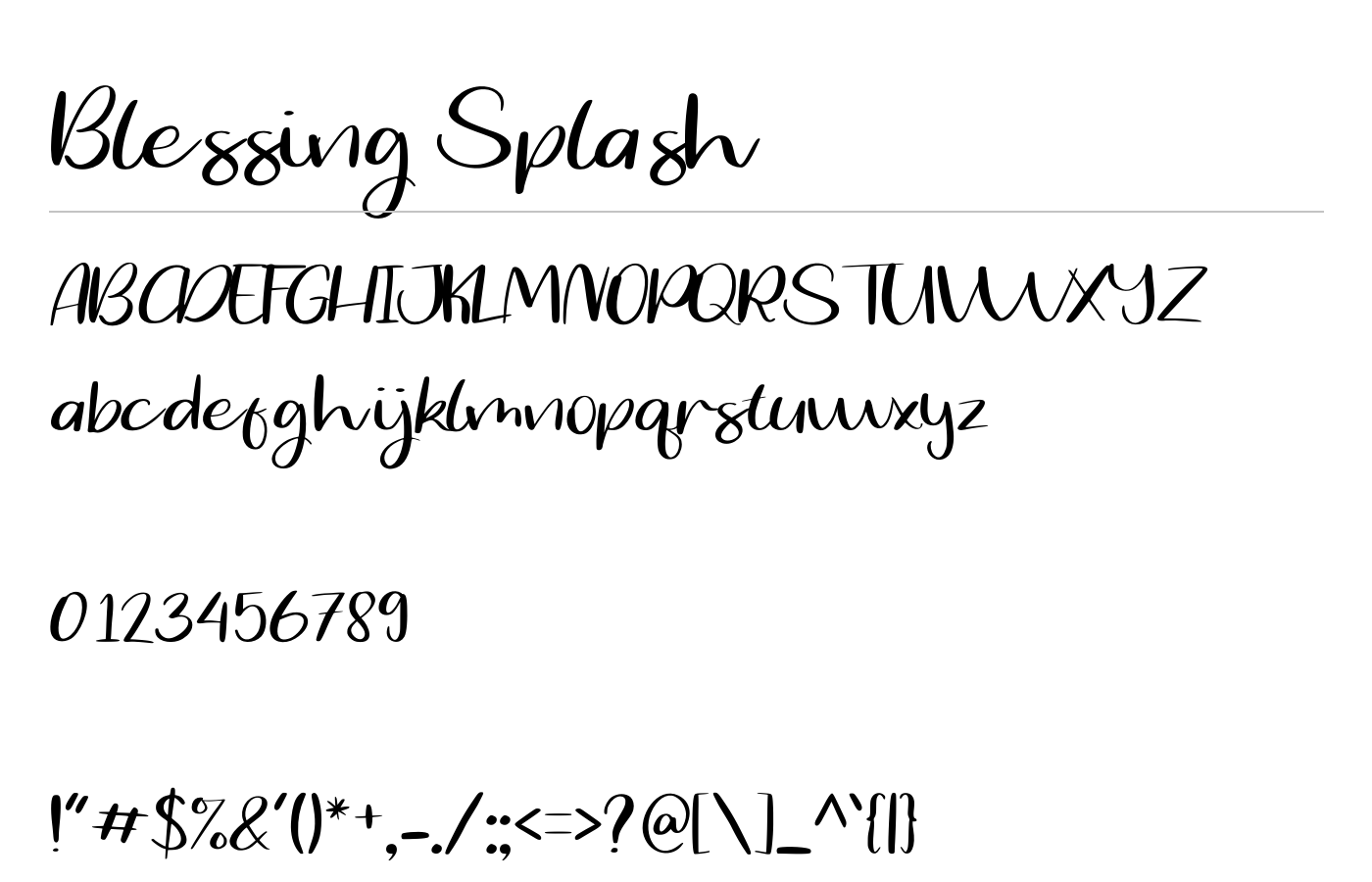
Blessing Splash is a playful and lively handwritten font with a casual, artistic flair. Its smooth, flowing letterforms and varied stroke widths give it a warm, friendly personality, making it ideal for creative projects, invitations, and branding that seeks a personal, approachable touch. This font shines in designs that want to convey charm and spontaneity while remaining readable and stylish.
Blessing Splash Font
About Blessing Splash Font
| Font family | Blessing Splash Font |
| Designer | Paily Studio |